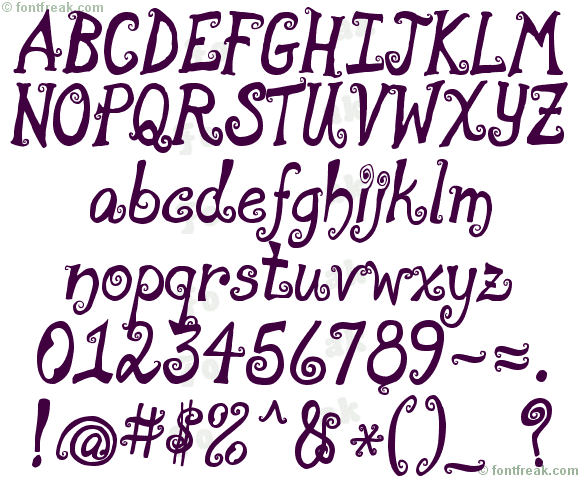
moonpie a la monde
About moonpie a la monde
The moonpie a la monde font, created by Steven J. Lundeen in 1997, is a delightful decorative typeface that stands out with its whimsical charm. This font features a unique blend of playful curves and spirals, making it a perfect example of a display font. Its distinct character is defined by varying stroke weights and a lively spirit that invites creativity. The spacing between letters is open, enhancing readability while allowing the font's intricate details to shine through.
Visually, moonpie a la monde boasts elaborate ornamental elements that add a fun and lighthearted feel to any design. The swirly accents and playful loops make it ideal for projects that aim to evoke joy and whimsy. This font is particularly well-suited for use in wedding invitations, where its romantic flair can enhance the overall aesthetic. It's also a fantastic choice for children’s book covers, birthday party invitations, or even quirky restaurant menus that want to capture a sense of playfulness.
The target audience for moonpie a la monde includes graphic designers and content creators who are looking to add a special touch to their work. Small business owners aiming for a unique brand identity can also benefit from using this font in their marketing materials, ensuring they stand out in a crowded marketplace.
What makes the moonpie a la monde font truly remarkable is its ability to bring a sense of joy and fun to various design projects. Whether you are crafting an invitation or a promotional poster, this font adds an engaging visual element that captures attention. For those interested, the moonpie a la monde font free download is available, allowing creatives to incorporate this enchanting typeface into their work effortlessly.